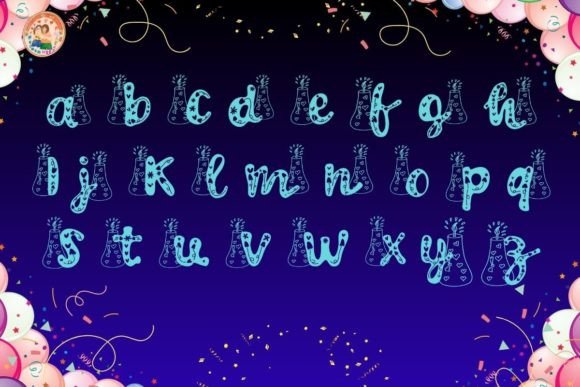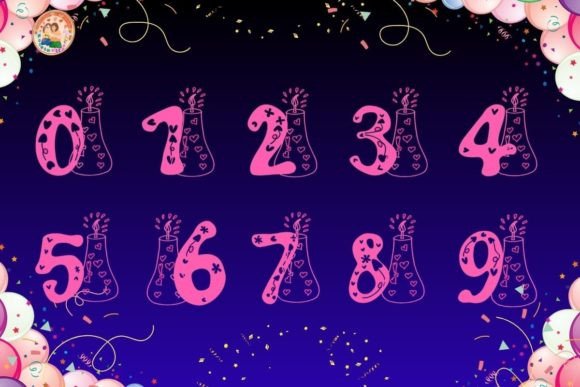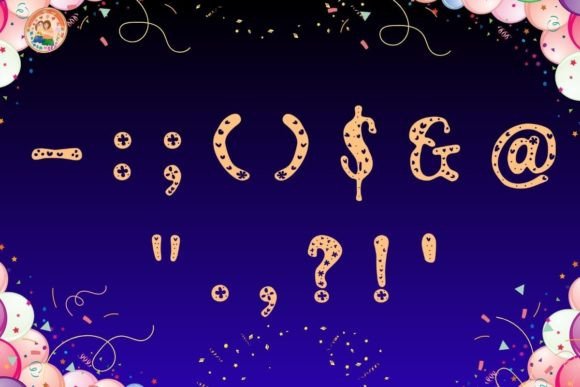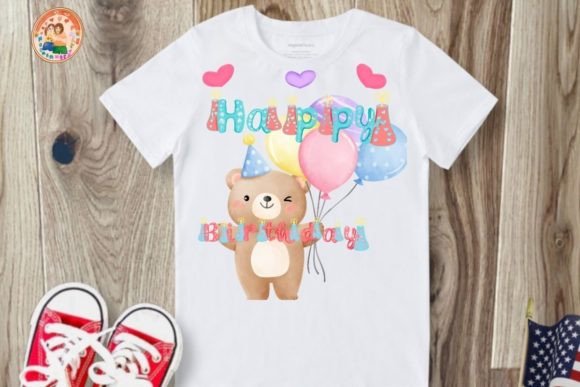
Introducing Happy Birthday Font: The Perfect Addition to Your Celebratory Designs
Are you a designer or crafter looking for a unique and playful font to add a personal touch to your birthday-themed projects? Look no further than the Happy Birthday Font! This adorable and eye-catching decorative font is specifically designed to make your creations stand out, whether you’re working on invitations, party decorations, or social media graphics.
What Makes Happy Birthday Font So Special?
Happy Birthday Font is a cute and striking decorative font that is perfectly suited for use in projects related to birthdays, children, teenagers, congratulations, wedding anniversary parties, invitations, and so much more. Its playful and celebratory vibe makes it an ideal choice for anyone looking to add a touch of whimsy and fun to their designs.
Whether you’re a professional designer or a DIY crafter, Happy Birthday Font is easy to use and can be incorporated into a wide range of projects, from digital graphics and invitations to paper crafts and party decorations. Its versatility and charm make it a valuable addition to any design library.
Key Features of Happy Birthday Font
- Cute and Playful Design: Happy Birthday Font features a unique and adorable design that is sure to capture the attention of your audience.
- High-Quality Letters: The font includes high-quality letters that are perfect for use in both digital and print projects.
- Versatile: This font can be used in a wide range of projects, from birthday invitations and party decorations to social media graphics and more.
Ideas for Using Happy Birthday Font
Happy Birthday Font is a versatile font that can be used in a variety of creative projects. Here are a few ideas to get you started:
- Birthday Invitations: Use Happy Birthday Font to create custom birthday invitations that are sure to impress.
- Party Decorations: Add a personal touch to your party decorations with Happy Birthday Font, perfect for birthday parties, wedding anniversaries, and more.
- Social Media Graphics: Use Happy Birthday Font to create eye-catching social media graphics that are sure to grab the attention of your followers.
- Paper Crafts: Happy Birthday Font is perfect for use in paper crafts, such as card making and scrapbooking.
- Experiment with Colors: Happy Birthday Font looks great in a variety of colors, so don’t be afraid to experiment and find the perfect color scheme for your project.
- Pair with Other Fonts: Happy Birthday Font pairs well with other fonts, so try combining it with a complementary font to add depth and interest to your design.
- Use in Combination with Images: Happy Birthday Font looks great when used in combination with images, such as photos or illustrations.
Happy Birthday Font is a unique and playful decorative font that is perfect for designers and crafters looking to add a personal touch to their birthday-themed projects. With its cute and striking design, high-quality letters, and ease of use, this font is sure to become a valuable addition to your design library. So why wait? Download Happy Birthday Font today and start creating your own celebratory designs!